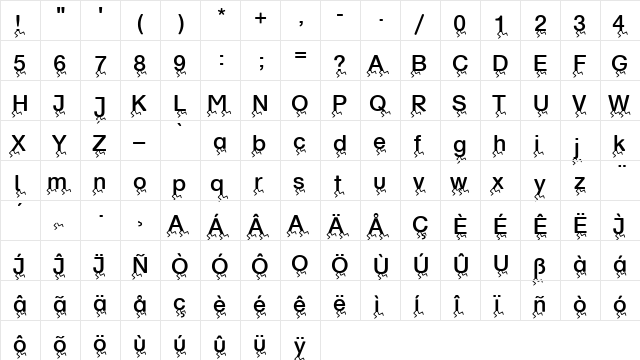
AILaufendes Regular Font Preview
AILaufendes Regular
AILaufendes Regular Font Details
| Foundry | \ Alphabets, Inc |
Design Context for AILaufendes Typeface
AILaufendes is a composed and adaptable typeface that performs quietly and consistently across a wide range of design contexts.